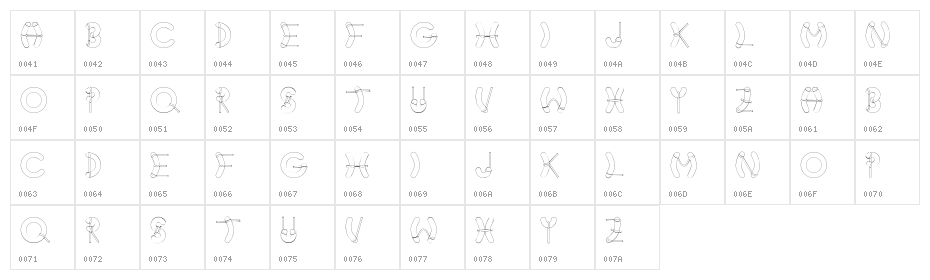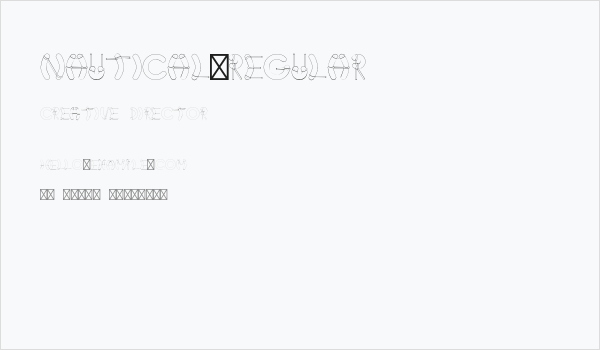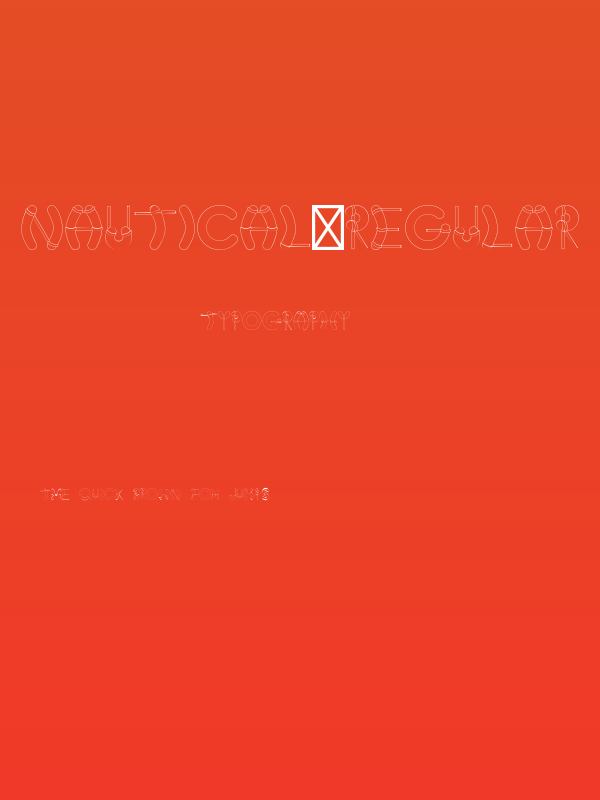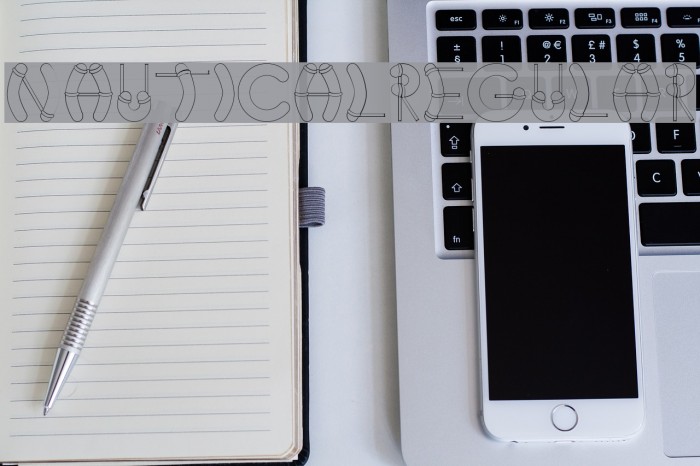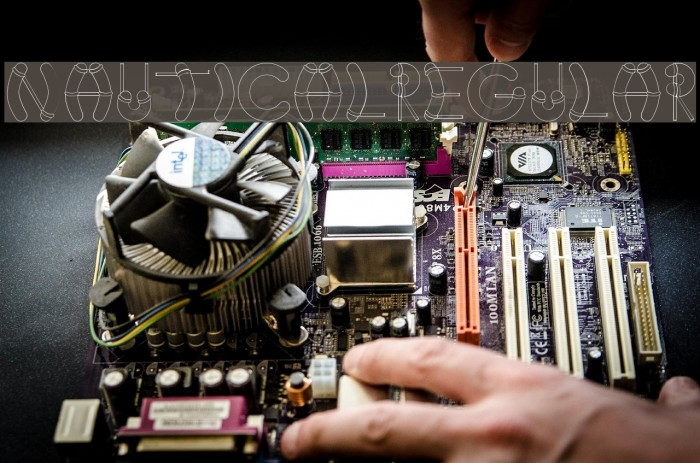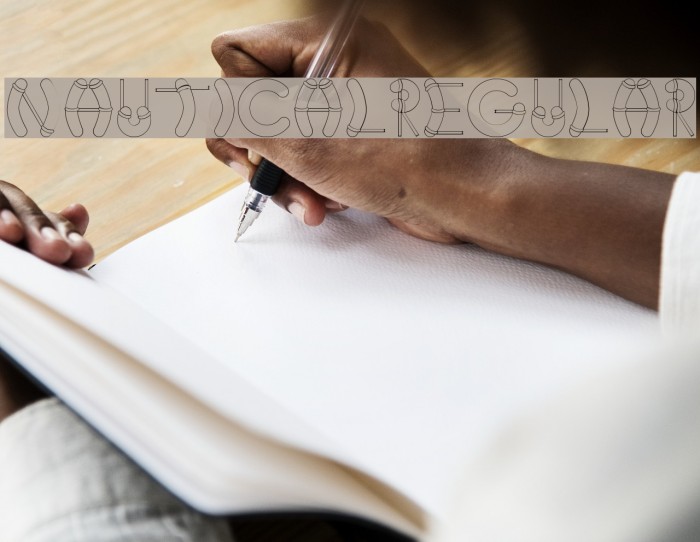
Nautical-Regular Font
Nautical-Regular Description
This font features a unique and playful design, reminiscent of nautical themes with its rope-like elements and maritime-inspired curves. The characters are outlined, giving them a light and airy feel, while maintaining a sense of structure and formality. The uppercase and lowercase letters are consistent in style, with a whimsical touch that makes them stand out. The numbers and special characters follow the same design principles, ensuring a cohesive look across all glyphs. This font is ideal for projects that require a touch of creativity and a nautical flair.
| Proposed Projects | Perfect for maritime-themed posters, children's books, event invitations, and creative branding projects. |